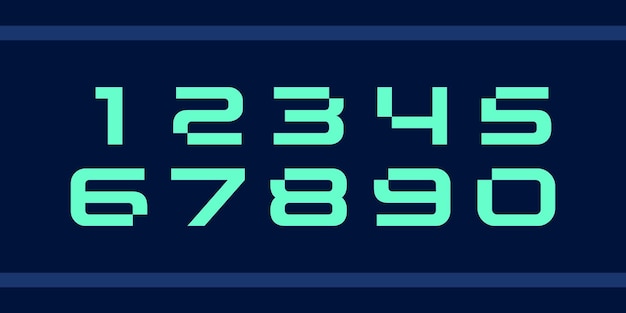
Numbers font. sport font with numbers and numeric. geometric regular extra bold rounded outline numbers. strong sport font for design, creative typographic, poster. vector illustration